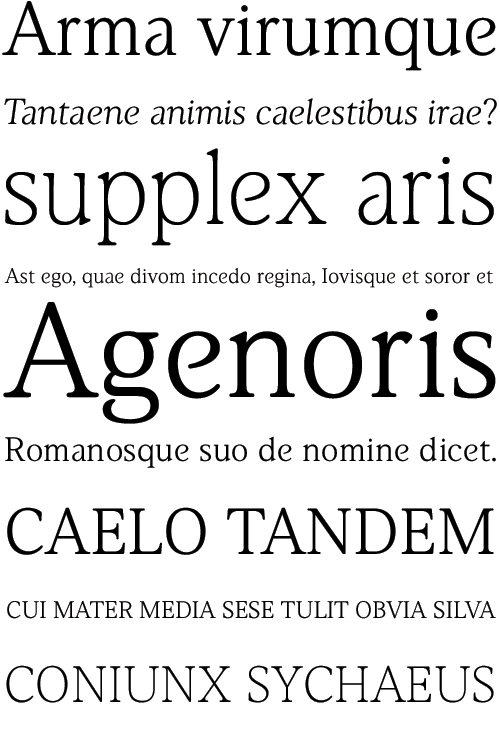
AE Aerie Logo & Typeface
MADType assisted American Eagle Outfitters in the logo development for their aerie intimates brand. I then created the aerie regular, italic, and light typefaces which are based upon and used in conjunction with the logo.
After the initial project was completed, AE saw the need for more weights and I created additional Bold and Black versions for them.
Year Designed:
2005-2006, 2008
Weights:
Light, Regular, Italic, Bold, Black